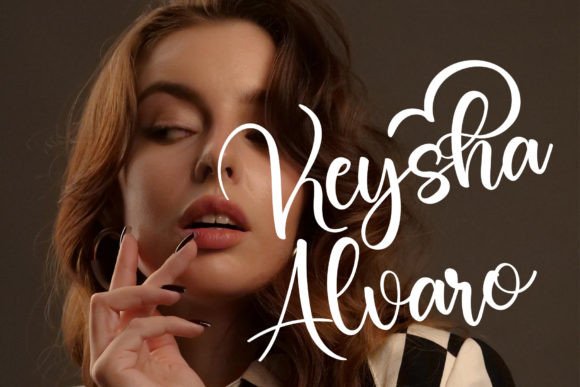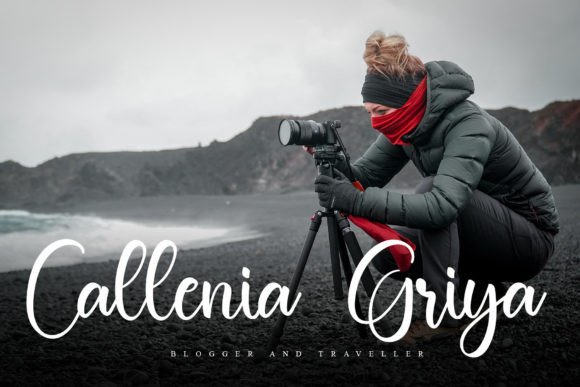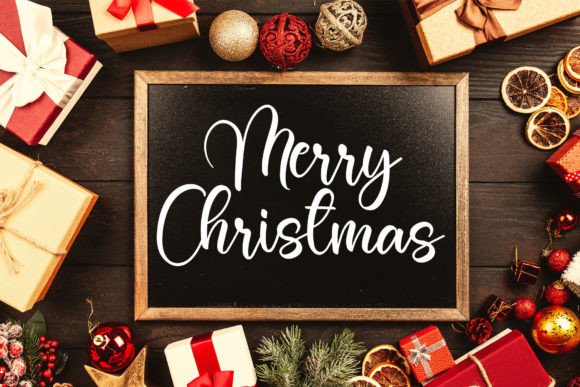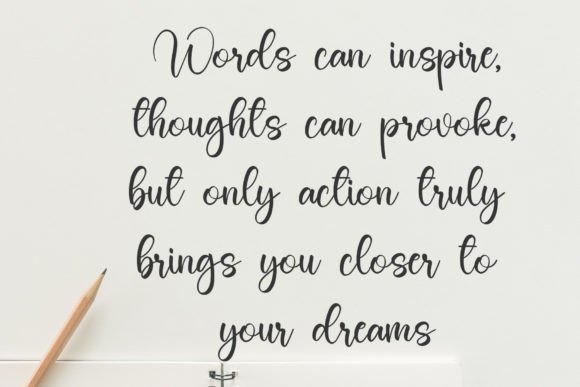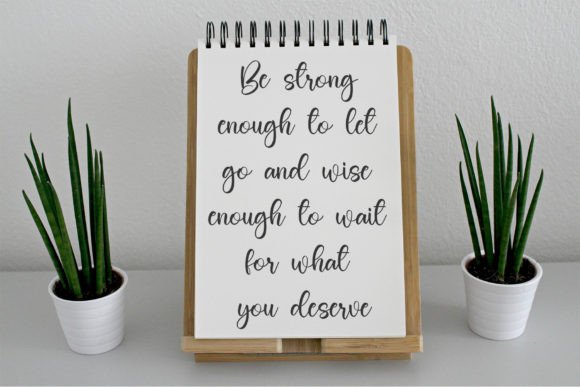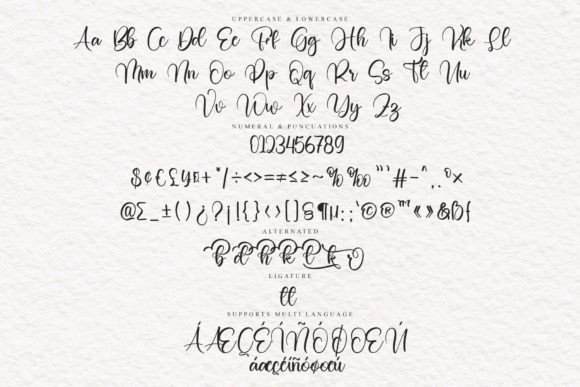
The Magic of Flicker Font: A Designer’s Delight
Have you ever been in the middle of a design project, and suddenly, you’re stuck on finding the perfect font? I recall a particularly frustrating experience while working on a wedding invitation design. My client wanted a font that was elegant, yet casual; romantic, yet playful. I scoured the internet, tried countless fonts, but nothing seemed to fit the bill. That’s when I stumbled upon Flicker Font, and it was love at first sight! 💕
A Personal Review of Flicker Font
Flicker Font is a sweet and cursive handwritten font that has become a staple in my design toolkit. Here’s what I love about it:
- ✨ Elegant yet casual: Flicker Font strikes the perfect balance between sophistication and playfulness.
- ✅ Versatile: This font looks stunning on a variety of design projects, from branding and logos to wedding materials and greeting cards.
- 💕 Romantic touch: Flicker Font adds a whimsical and romantic flair to any design, making it perfect for special occasions.
While Flicker Font is an amazing addition to any design project, there are a few minor quirks to be aware of:
- 🤔 Limited character set: As a handwritten font, Flicker Font may not have an extensive character set, which can limit its use in certain projects.
- ⚠️ Kerning issues: As with any font, kerning can be a bit tricky, especially when using Flicker Font in larger sizes.
A Practical Guide to Using Flicker Font
- Experiment with OpenType features, such as ligatures and stylistic alternates, to add visual interest to your design.
The Story Behind Flicker Font
Flicker Font was designed by a talented type designer who wanted to create a font that captured the essence of handwriting. Inspired by the flowing lines and gentle curves of handwritten script, Flicker Font was born. With its unique character and versatility, Flicker Font has become a favorite among designers and crafters.
| What is Flicker Font best used for? | Flicker Font is perfect for a variety of design projects, including branding, logos, wedding materials, greeting cards, and more. |
| Is Flicker Font suitable for body text? | While Flicker Font is beautiful, it’s best used for headlines and titles. For body text, a clearer font may be more suitable. |